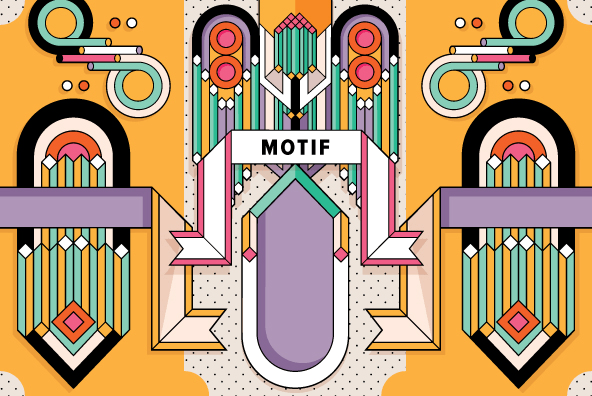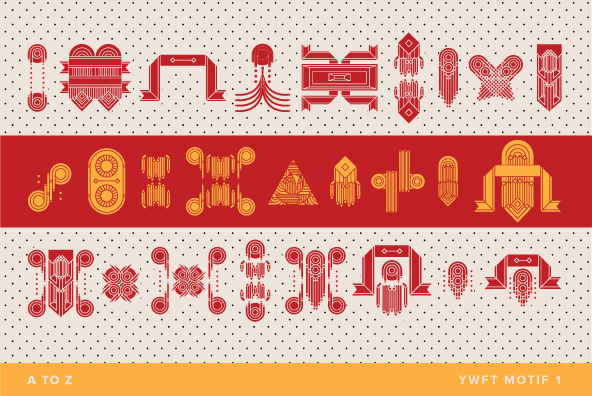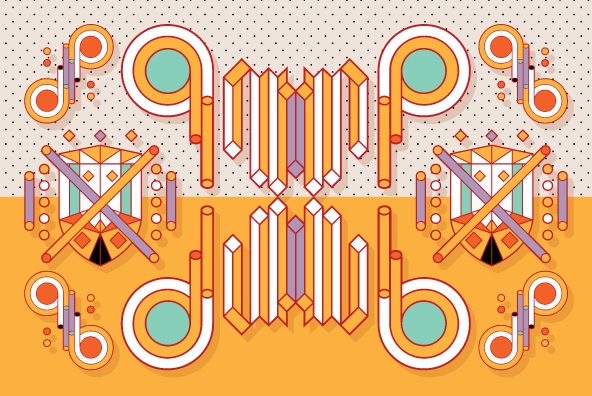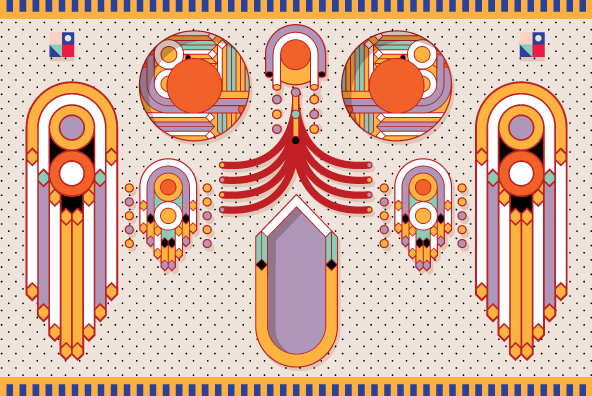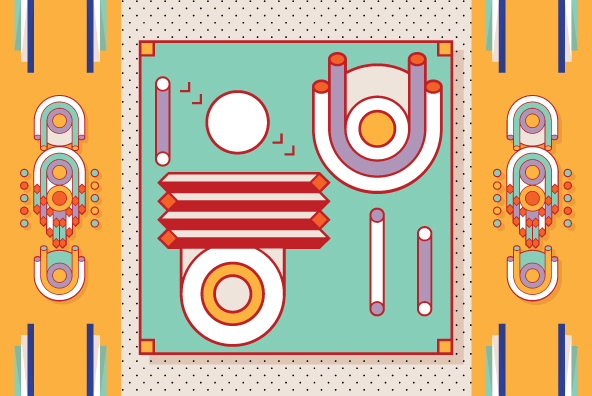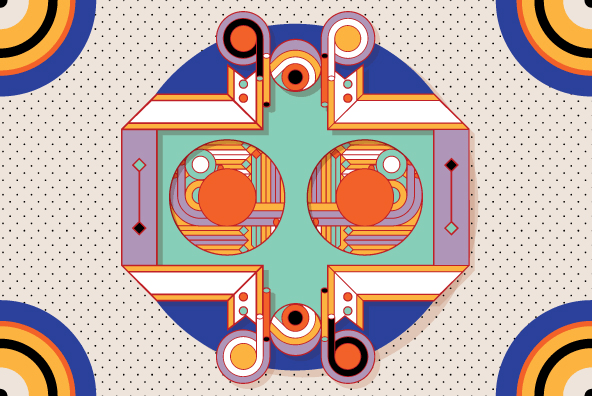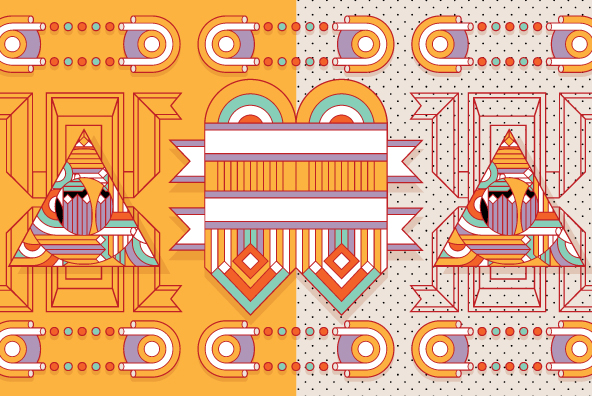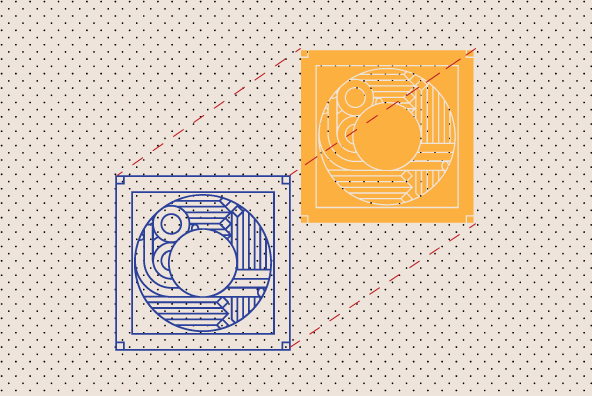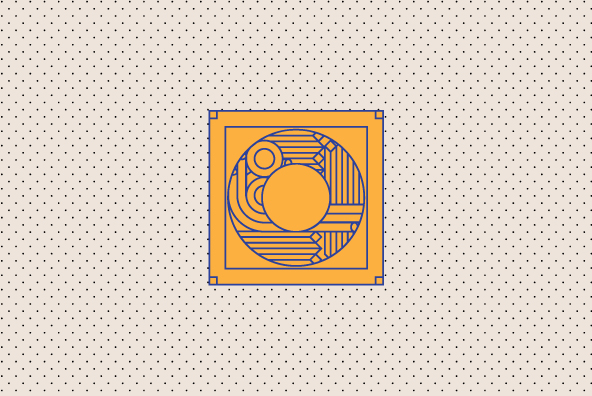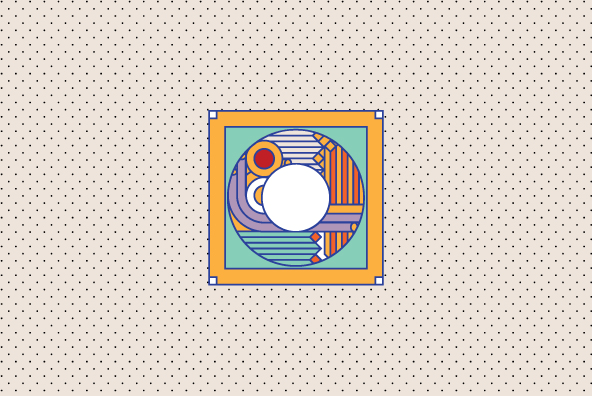
YWFT Motif
Font Family by YouWorkForThem
After starting life as as customizable set of unique vector illustrations, YWFT Motif has been reborn like Jay Gatsby into a meticulously crafted icon/symbol font, inspired by Art Deco. Containing two styles, so users can layer the solid with the outline, this Motif contains serious detail that is equally at home in Miami or Paris.
YWFT Motif Solid
YWFT Motif Outline